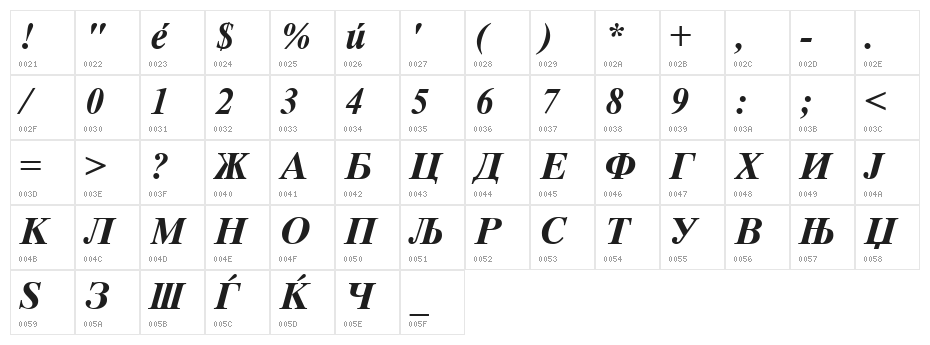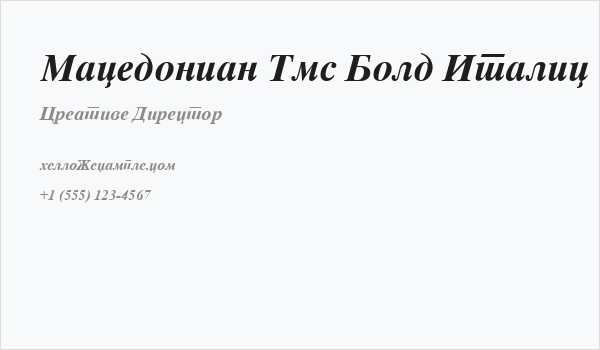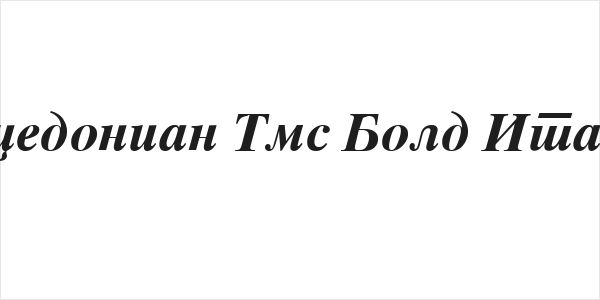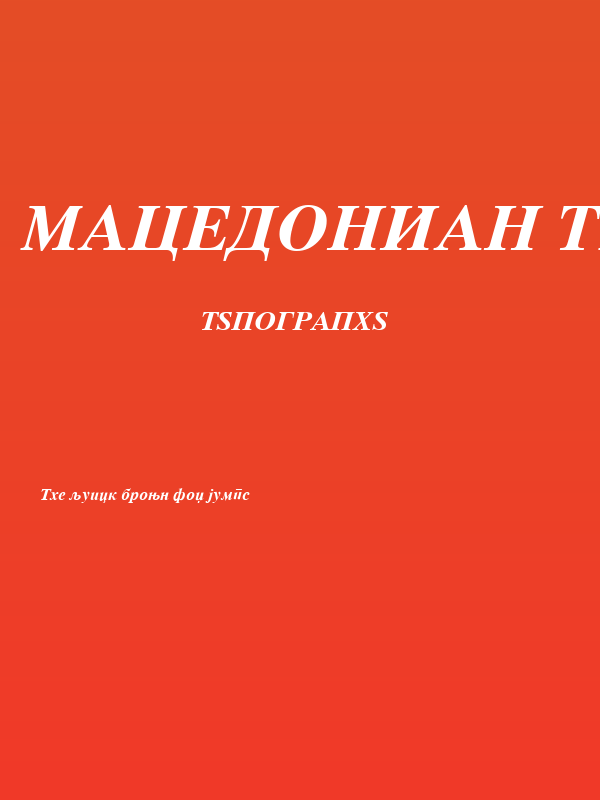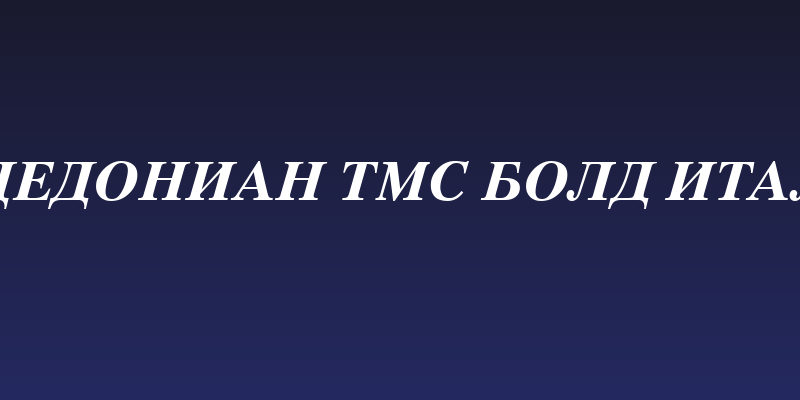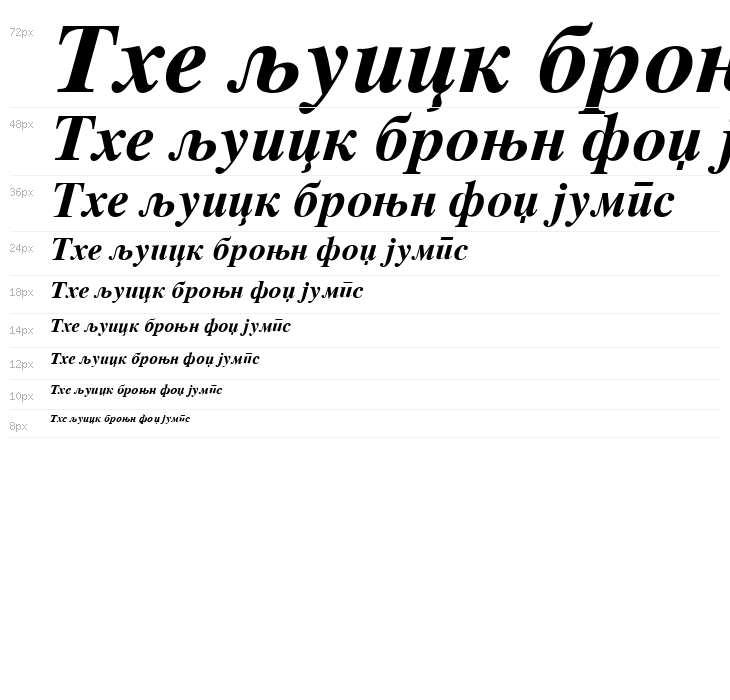
Macedonian Tms Bold Italic Font
Macedonian Tms Bold Italic Description
This font features a bold and italicized style with a classic serif design. It includes a full set of uppercase and lowercase Cyrillic characters, numerals, and a variety of punctuation marks and special characters. The serifs are pronounced, adding a traditional and formal touch to the text. The italicization gives the font a dynamic and elegant appearance, suitable for emphasizing text. The bold weight ensures strong visibility and readability, making it ideal for headlines and titles. The overall design is balanced, with moderate contrast between thick and thin strokes, providing a harmonious and sophisticated look.
| Use Case | Headlines, Titles, Formal Documents |
| Proposed Projects | Ideal for formal documents, book covers, headlines, and branding materials that require a touch of elegance and tradition. |